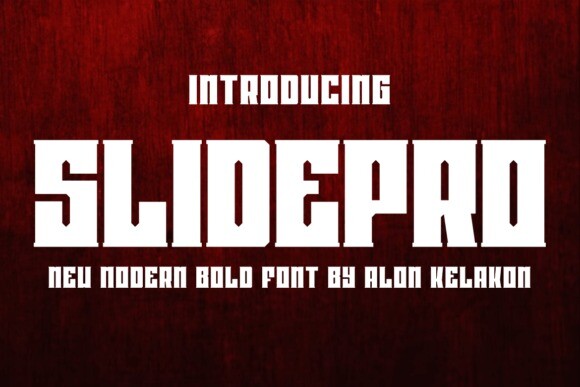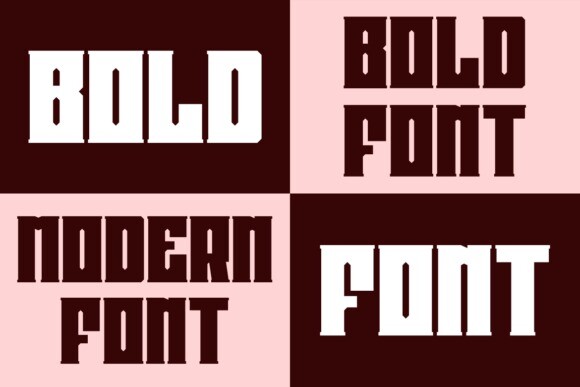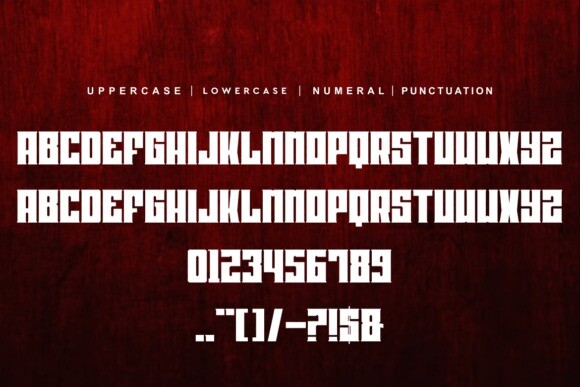
Slidepro Font
Slidepro Font is unique . Ready to use for your design like labeling, clothing, movie sceen, poster, movie title, gigs, album covers, logos, and much more.